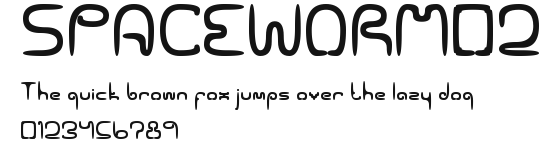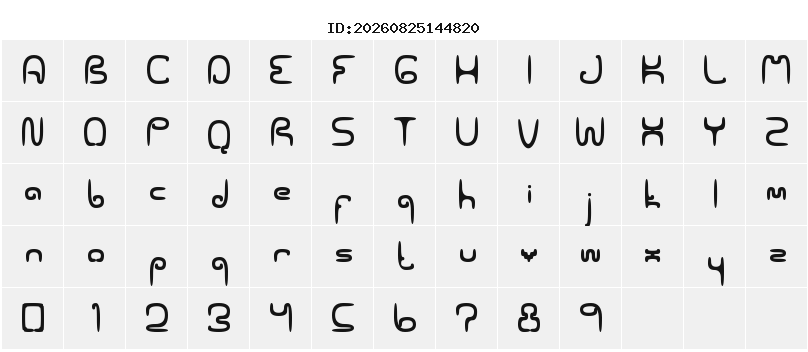
SPACEWORM02 Preview
• Designer: Eric Wiryanata
About SPACEWORM02.ttf
SPACEWORM02.ttf is a modern, elegant sans-serif font designed for ultimate readability and visual harmony. Perfect for branding, headlines, web design, and print materials.